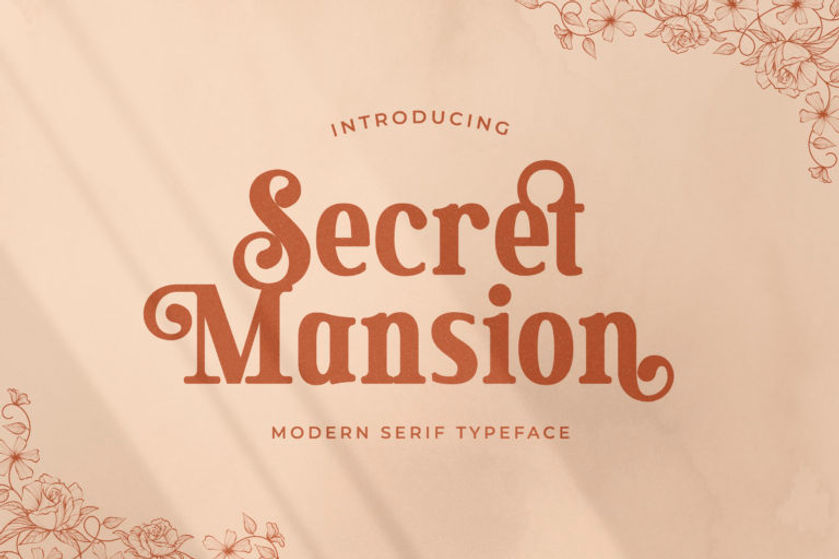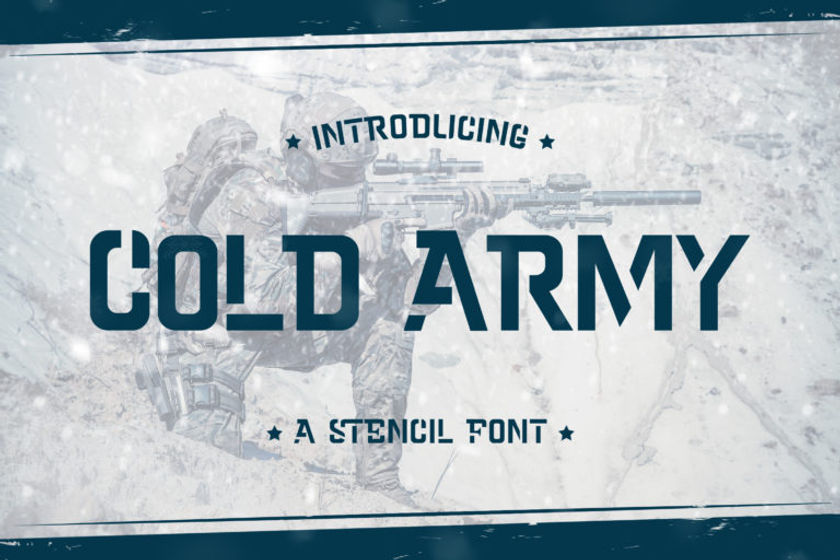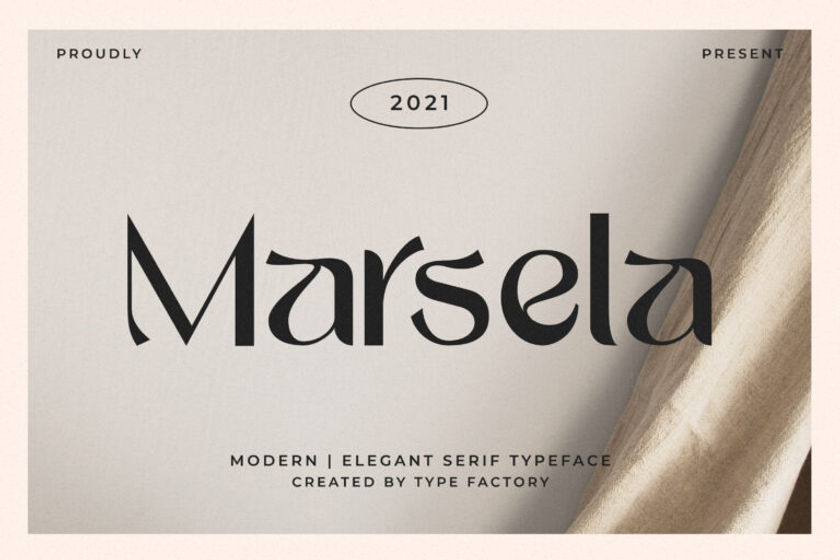
Finding Your Typeface: How Typography Makes or Breaks the Brand
Sure, there are millions of fonts out there. It can seem overwhelming when you’re trying
to choose one. But you don’t have to figure it all out on your own. When selecting a font for your brand, it is crucial to consider who you are and where you want your brand to go.
What is a Font Anyway?
Circus themed font for display
Fun Show – Display Font
A font combines typeface, size, weight, slope, and style to make up a set of printable or displayable characters.
This text you’re reading right now looks the way it does because of the font chosen to draw the letters onscreen.
Fonts are used in design to communicate a certain mood or atmosphere.
Different fonts will alter the context of the words immensely. For instance, Comic Sans are often used for playful or informal messages. In contrast, Helvetica may be used to communicate a more serious tone.
Fonts significantly impact your brand ( and everything visual you produce ).
A quick primer on the two main categories of fonts (serif and sans serif)
Fonts are classified into two main categories: serif and sans-serif.
A serif typeface is characterized by small lines, or “serifs,” on the ends of letters. Sans-serif typefaces lack these lines.
Serif typefaces were the most common fonts before the invention of computerized printing. They still appear in print regularly because they have been proven to have greater legibility, especially in the printed text that has small point sizes and low levels of contrast between thick and thin strokes.
Sans-serif typefaces saw a rise in popularity after the invention of computers for several reasons, including their strong legibility at low resolution and clarity when used with high resolutions.
So What Type of Font Is Best For Your Brand?
Nothing is more important than making your content look good and read well. Good typography can elevate the look of any business, and you can make it worse by using poor typography.
Use only a few different fonts in your designs. It makes your design look unprofessional and cluttered. Similar to using color, use two typefaces and a maximum of three.
The first factor to consider is the typeface itself. Depending on what your company does, you may want to use a more traditional serif typeface for body text, such as Bodoni or Garamond, or a sans serif font like Helvetica for headings.
Serif fonts are easier to read at smaller sizes, so they’re best for body text, while sans serif fonts work better at larger sizes.
You might also want to think about the message you are trying to send with your brand.
For example, suppose you run a business that takes itself very seriously. In that case, you might want to choose a classic serif font like Baskerville or Times New Roman. On the other hand, if your business is casual or fun, you might want to go with a more modern-looking sans serif font like Helvetica.
Choosing the right font for your brand is not easy. However, it is essential to select a font appropriate for your business, balance visual appeal with readability, and resonate with your target audience.
Consider what you want to convey
Choosing the right fonts can make the difference between a design that looks cheap and one that looks professional.
If your audience doesn’t trust your brand at first glance due to poor typography choices, they may not even bother reading anything else you have to say.
Keep things legible
A clear and legible typeface is preferable to one that is difficult to read. Individuals will likely disregard your brand if they take additional time to decipher what you’re saying.
Additionally, it is critical to select a typeface that is legible in a variety of sizes and weights to retain readability across uses ( verify that the typeface you choose is readable on smaller screens )
Don’t try to mix and match too many different fonts
In your design, don’t use more than 2–3 typefaces. Start by playing with different sizes and weights for your current typefaces before adding a new typeface.
Some examples
Some examples of how fonts can match a brand.
When your brand speaks of elegance and beauty
Fonts such as Avoda are appropriate when your brand has to ooze sophistication and elegance. Its clean lines and robust structure make it a fantastic choice for enhancing any brand’s visual appeal.
elegant sans serif for fashion
Avoda Modern Sans Serif
Other choices to tell an elegant story:
Secret Mansion
Secret Mansion Typeface
Marsela
Marsela Typeface
When your brand needs to be powerful
We want to look at a typeface like Cold Army for brands that need to exude strength and reliability. Its heavier feel and distinct shape give it a weight that demonstrates you are not messing around.